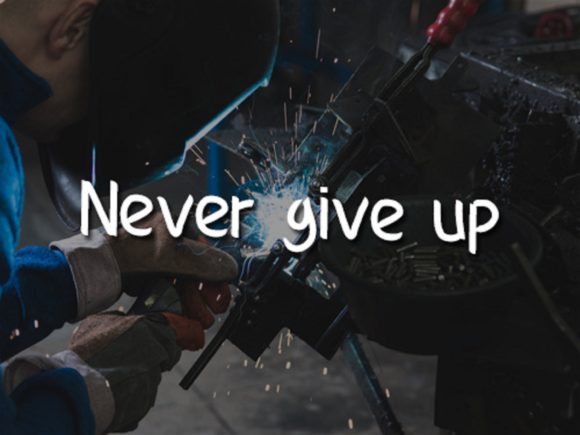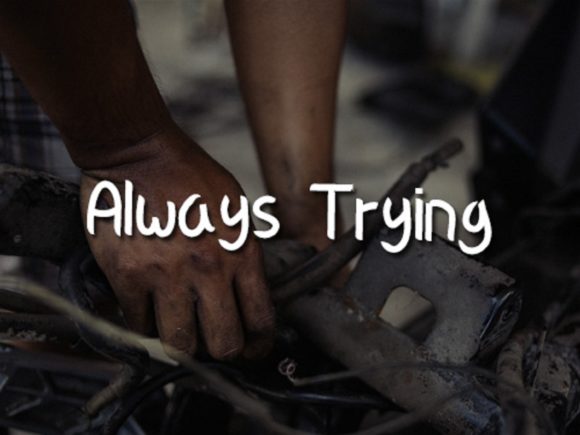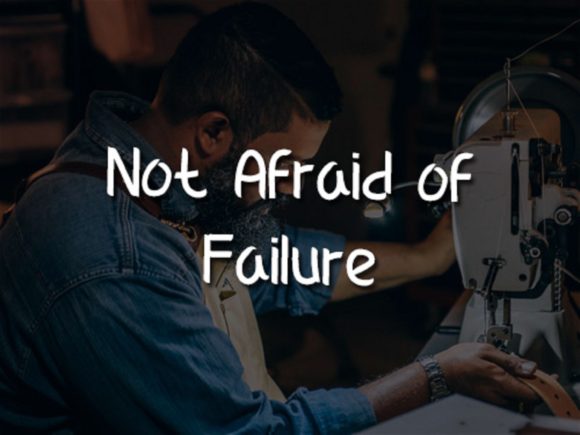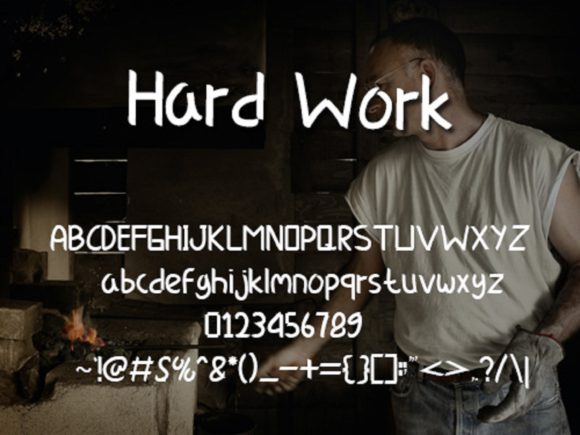
Introducing Hard Work Font: Elevate Your Creative Projects with Style
Are you a designer, crafter, or DIY enthusiast looking for a font that can add a touch of elegance and sophistication to your creative projects? Look no further than Hard Work Font, a cool and simple display font that’s perfect for a variety of applications. In this article, we’ll explore the features and benefits of Hard Work Font, and show you how it can help turn your creative ideas into stunning works of art.
What is Hard Work Font?
Hard Work Font is a modern display font that’s designed to make a statement. With its clean lines, simple shapes, and elegant curves, this font is perfect for anyone looking for a stylish and versatile typeface. Whether you’re creating social media graphics, crafting DIY projects, or designing logos and branding materials, Hard Work Font is the perfect choice.
Key Features of Hard Work Font
• Cool and Simple Design: Hard Work Font features a sleek and modern design that’s both stylish and easy to read.
• Display Font: This font is specifically designed for display purposes, making it perfect for headlines, titles, and other attention-grabbing applications.
• Versatile: Hard Work Font can be used for a wide range of creative projects, from Instagram graphics to calligraphy scripts and DIY projects.
Hard Work Font is a versatile typeface that’s perfect for designers and crafters alike. Whether you’re creating professional branding materials or crafting personal DIY projects, this font can help elevate your designs to the next level. Here are just a few ways you can use Hard Work Font:
• Instagram Graphics: Use Hard Work Font to create stunning Instagram graphics that showcase your brand or personal style.
• Calligraphy Scripts: Add a touch of elegance to your calligraphy scripts with Hard Work Font.
• DIY Projects: Use Hard Work Font to add a professional touch to your DIY projects, from crafting to woodworking.
• Logos and Branding: Create professional logos and branding materials with Hard Work Font.
Benefits of Using Hard Work Font
So why choose Hard Work Font for your creative projects? Here are just a few benefits of using this amazing typeface:
• Instant Style: Hard Work Font adds an instant touch of style and sophistication to any creative project.
• Easy to Read: This font is designed to be easy to read, making it perfect for headlines, titles, and other display applications.
• Versatile: Hard Work Font can be used for a wide range of creative projects, from digital graphics to print materials.
• Time-Saving: With Hard Work Font, you can create professional-looking designs in minutes, saving you time and effort.
Hard Work Font is a cool and simple display font that’s perfect for designers, crafters, and DIY enthusiasts. With its elegant design, versatility, and ease of use, this font is sure to become a staple in your creative toolkit. Whether you’re looking for fonts for Instagram, calligraphy scripts, or DIY projects, Hard Work Font is the perfect choice. So why wait? Download Hard Work Font today and start elevating your creative projects to the next level!